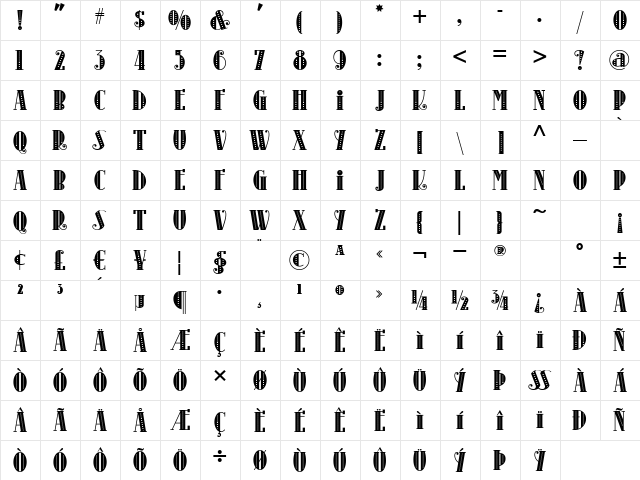
Kinkajou Stew NF Regular
Design Context for Kinkajou Stew NF Typeface
Kinkajou Stew NF is a composed and adaptable typeface that performs quietly and consistently across a wide range of design contexts.